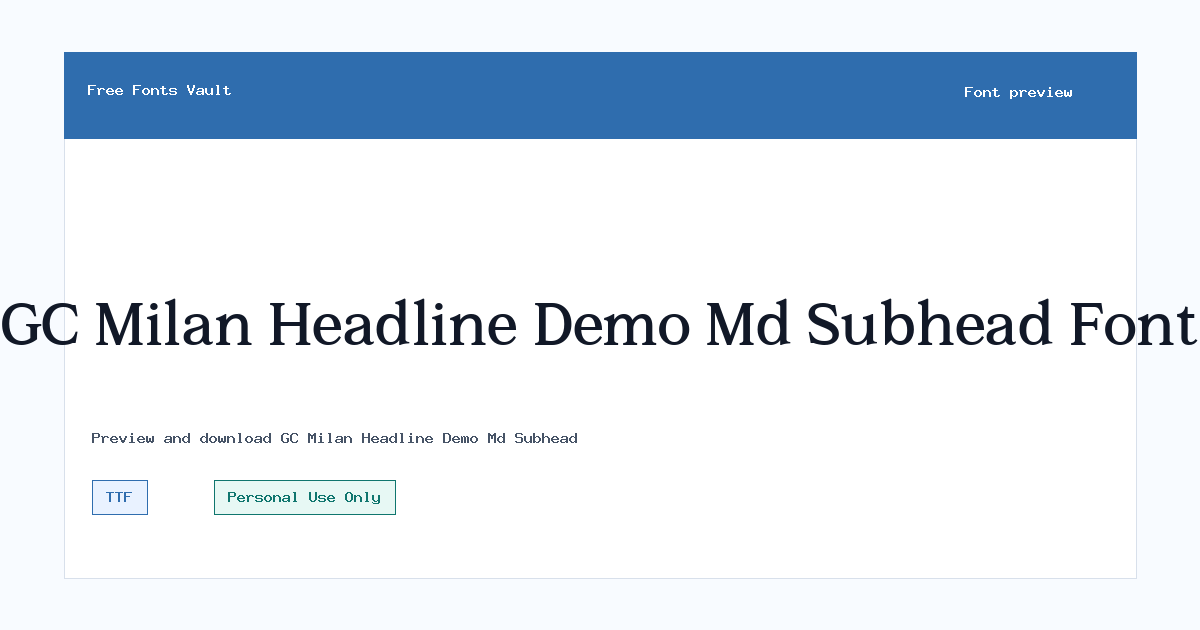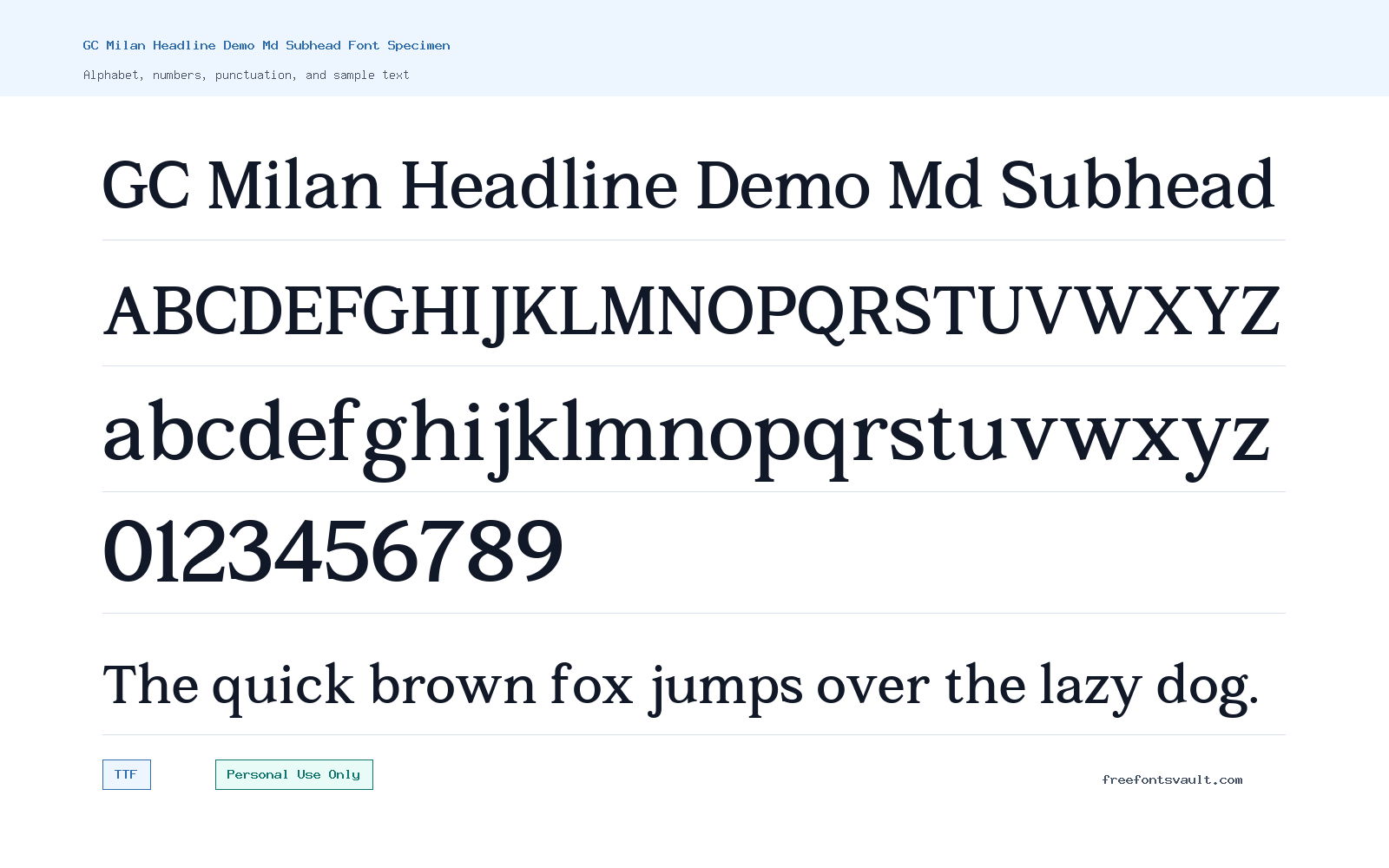
GC Milan Headline Demo Md Subhead
- Designer Zainaldi Ibrahim of Glyphonic
GC Milan Headline Demo Md Subhead is a headline serif demo font made for display settings where the type needs to feel polished without becoming too heavy.
About GC Milan Headline Demo Md Subhead
GC Milan Headline Demo Md Subhead sits in a useful middle space for titles, subheads, and short feature text. The name points to a medium subhead role, so it is best treated as a display serif for lines that need more presence than body copy but less weight than a main poster title. Its serif structure can bring a refined editorial tone to previews, covers, section headers, quote graphics, and brand-style mockups. Because the available file is a demo TTF, the safest use is to test the look in controlled personal projects before deciding whether the full family is needed.
Use the preview tool with the exact words you plan to set, especially if your design uses names, short phrases, or mixed punctuation. Headline serifs often look strongest at larger sizes, where spacing, contrast, and letter shape are easier to appreciate. For longer paragraphs, pair this font with a calm sans serif or a simpler text serif and let GC Milan Headline Demo Md Subhead handle the hierarchy. Keep line lengths moderate, avoid all-caps blocks unless the spacing works well, and check how the font behaves on both light and dark backgrounds before downloading.
- Medium headline serif style suited to subheads, titles, and short display text
- Editorial subheads, article headers, magazine-style layouts, and cover mockups
- Personal branding drafts, quote cards, invitation concepts, and social graphics
The font is credited to Zainaldi Ibrahim of Glyphonic.
Test it at headline and subhead sizes first. If you use it in a layout with body text, pair it with a neutral companion font and give the serif enough space so the title remains clear.
What kind of font is GC Milan Headline Demo Md Subhead?
It is a headline serif demo font intended for display use such as titles, subheads, and short prominent text.
Can I use this font for body text?
It is better for short display text. For paragraphs, use a more restrained text font and keep this font for headings or emphasis.
Who designed GC Milan Headline Demo Md Subhead?
The font is credited to Zainaldi Ibrahim of Glyphonic.